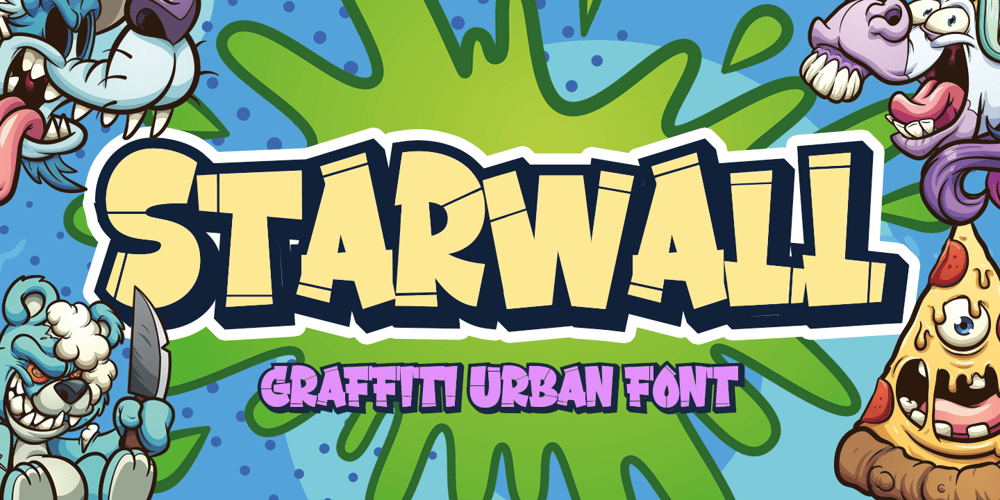
Starwall
Starwall font
Starwall Font Family was designed by Bangkit Tri Setiadi and published by Blankids. Starwall contains 2 styles and family package options. Hello,Are you looking for a graffiti urban font? Do you want of creating Something that stand out and inspire creativity, imagination, and endless fun? Wait no more, we will give you the best choice.Starwall a Graffiti Urban Font Starwall a Graffiti Urban Font, Inspiring from graffiti typography. This font is perfect for a design that makes it more attractive and playful. made with a very good level of aesthetics making this font suitable for book cover, poster, packging, merchandise, logotype and much more.FEATURES : Uppercase Lowercase Number Punctuation Multilingual PUA Encode Opentype